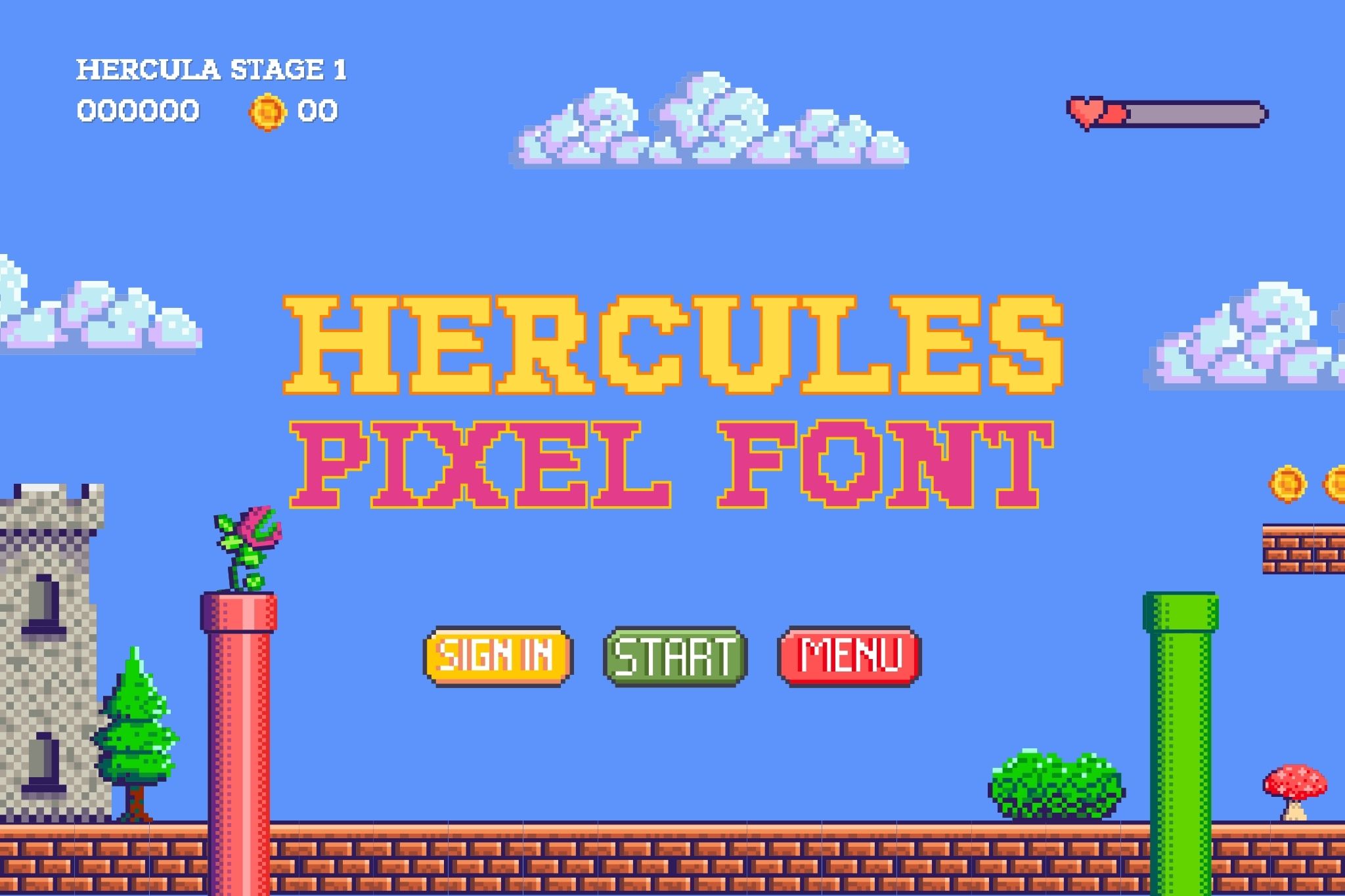
- Hercules Pixel Font
Hercules Pixel Font is a powerful pixel typeface built for gaming nostalgia and retro design. Hercules combines classic 8-bit aesthetics with modern versatility, creating a font that’s perfect for game developers, streamers, content creators, and designers looking to add authentic retro charm to their projects.
Features:
- Classic Gaming Aesthetic: Authentic pixel construction that captures the golden era of video games
- Multiple Character Sets: Complete with standard glyphs, numerals, functional characters, and multilingual support
- Versatile Applications: Perfect for game interfaces, stream overlays, educational content, websites, and creative projects
- Bold Personality: Strong, distinctive letterforms that remain readable at various sizes
- Authentic Pixel Construction: True to the pixelated roots without compromising on clarity
Hercules Pixel Font doesn’t just mimic retro gaming visuals—it authentically recreates them with careful attention to pixel-perfect construction. Each character is crafted to maintain legibility while staying true to the chunky, block-based aesthetic that defined early gaming typography.
Whether you’re building an indie game, creating nostalgic content, designing an educational platform, or just adding some retro flair to your next project, Hercules Pixel Font delivers heroic results with classic gaming charm.
Level up your typography with the mighty Hercules Pixel Font!